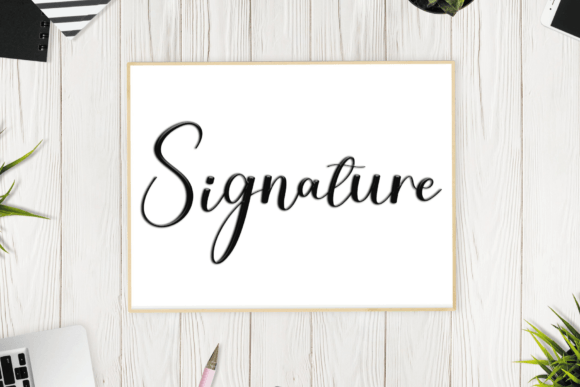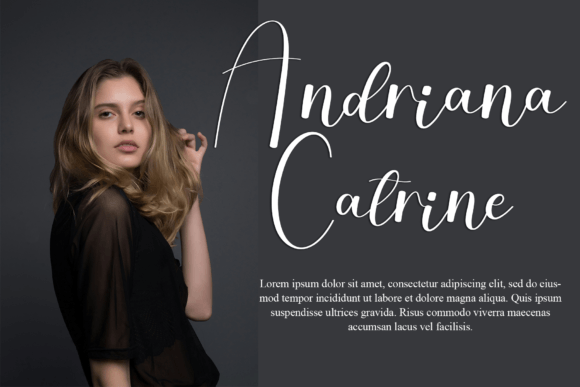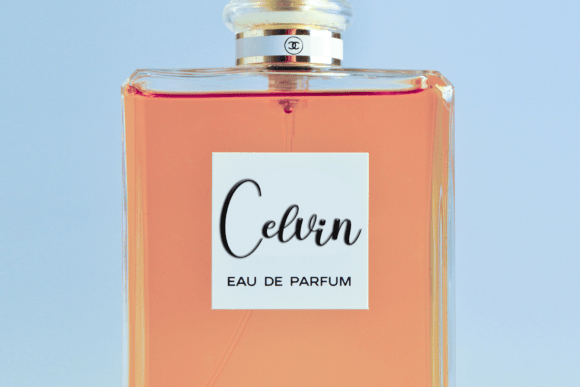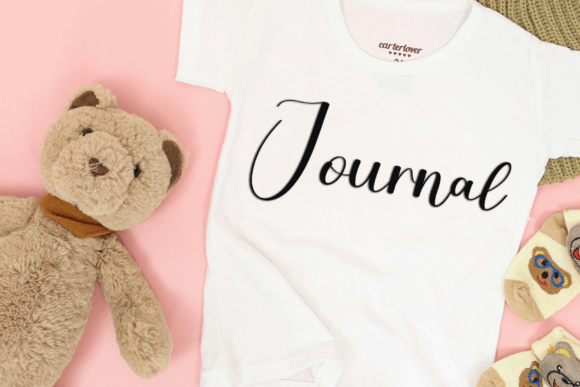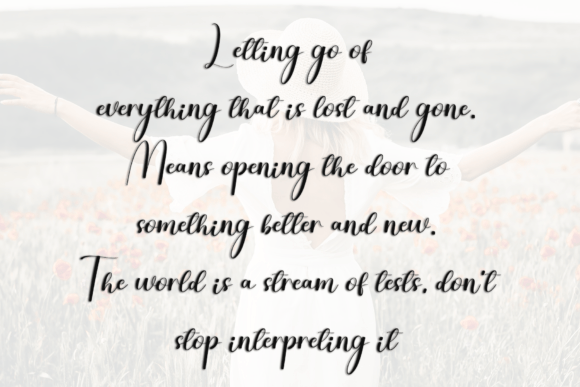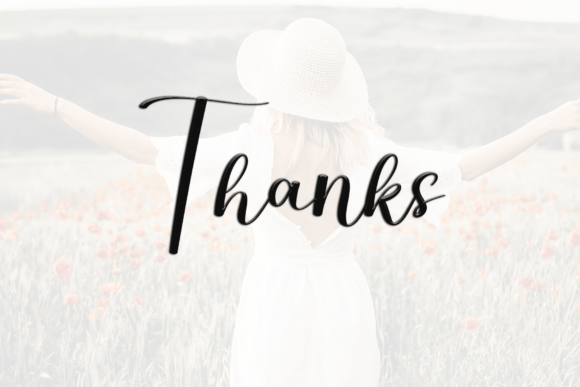
Discover the Charm of Brooklyn Font: Elevate Your Designs with a Touch of Fresh Elegance
In the world of typography, fonts play a crucial role in conveying the tone and personality of a design. For those seeking a typeface that exudes a sense of freshness and casual elegance, look no further than the Brooklyn Font. This charming handwriting font has captured the hearts of designers and crafters alike, and for good reason. Its fluid strokes and organic lines evoke a laid-back vibe, making it perfect for a wide range of design projects.
The Essence of Brooklyn Font
Brooklyn Font is more than just a typeface; it’s an expression of warmth and personality. Its unique, hand-crafted aesthetic gives it a distinctive charm that sets it apart from more traditional fonts. The fluidity of its strokes and the organic nature of its lines create a sense of movement and spontaneity, adding a touch of whimsy to any design.
One of the standout features of Brooklyn Font is its versatility. Whether you’re working on a branding project, designing invitations, or creating social media graphics, this font is sure to make a lasting impression. Its casual elegance and fresh vibe make it an excellent choice for:
- Branding: Add a personal touch to your brand’s identity with Brooklyn Font. Its unique charm can help your brand stand out in a crowded market.
- Invitations: Create beautiful, one-of-a-kind invitations for weddings, parties, and other special events. Brooklyn Font’s elegant yet casual feel is sure to impress.
- Social Media Graphics: Elevate your social media presence with eye-catching graphics featuring Brooklyn Font. Its laid-back vibe is perfect for engaging with your audience.
Why Designers and Crafters Love Brooklyn Font
So, what makes Brooklyn Font a favorite among designers and crafters? Here are just a few reasons:
- Unique Aesthetic: Brooklyn Font’s hand-crafted look gives it a distinctive charm that can’t be replicated with more traditional fonts.
- Versatility: From branding to invitations, Brooklyn Font can be used for a wide range of design projects.
- Ease of Use: Brooklyn Font is easy to read and works well in both digital and print formats, making it a practical choice for designers.
Tips for Using Brooklyn Font Effectively
To get the most out of Brooklyn Font, here are a few tips to keep in mind:
- Pair with Complementary Fonts: Brooklyn Font pairs well with clean, sans-serif fonts. Try pairing it with fonts like Arial, Helvetica, or Open Sans to create visual interest.
- Experiment with Colors: Brooklyn Font looks great in a variety of colors. Don’t be afraid to experiment with different hues to find the perfect match for your design.
- Use for Headings and Titles: Brooklyn Font is perfect for headings and titles, where its unique charm can really shine.
In conclusion, Brooklyn Font is a charming handwriting font that offers a fresh and elegant alternative to more traditional typefaces. Its fluid strokes, organic lines, and laid-back vibe make it perfect for a wide range of design projects. Whether you’re a designer or crafter, Brooklyn Font is sure to become a favorite in your toolkit. So why not give it a try and see how it can elevate your designs?
With its unique aesthetic, versatility, and ease of use, Brooklyn Font is an excellent choice for anyone looking to add a touch of warmth and personality to their designs. So go ahead, explore the possibilities of Brooklyn Font, and discover a world of creative possibilities.